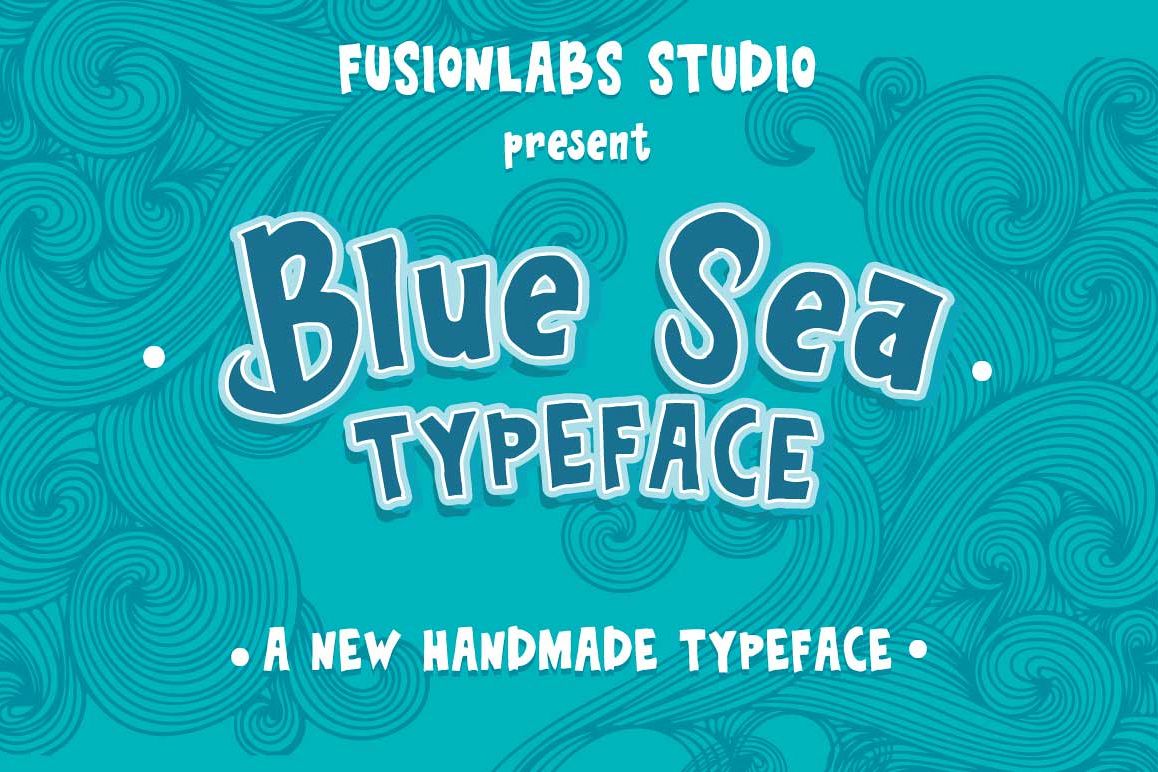
Blue Sea Typeface
Blue Sea Typeface is a fun display font intended to use informally, sketchy, look like hand written and vintage manual type design styles. It is suitable for poster, lettering, greeting card, t-shirt design etc.
This font contains with special ornamental uppercase that can be used to create a stand out and attractive message. Blue Sea Typeface font comes with the alternative characters which can be accessed by using OpenType savvy programs such as Adobe Illustrator and Adobe InDesign.